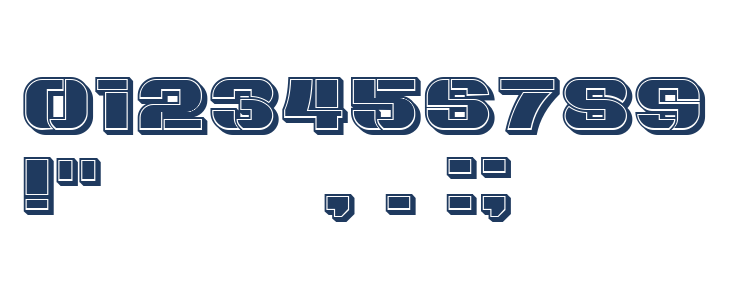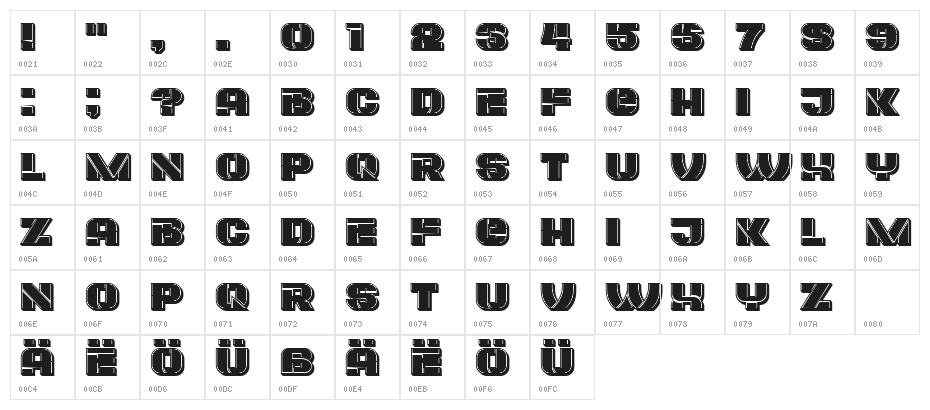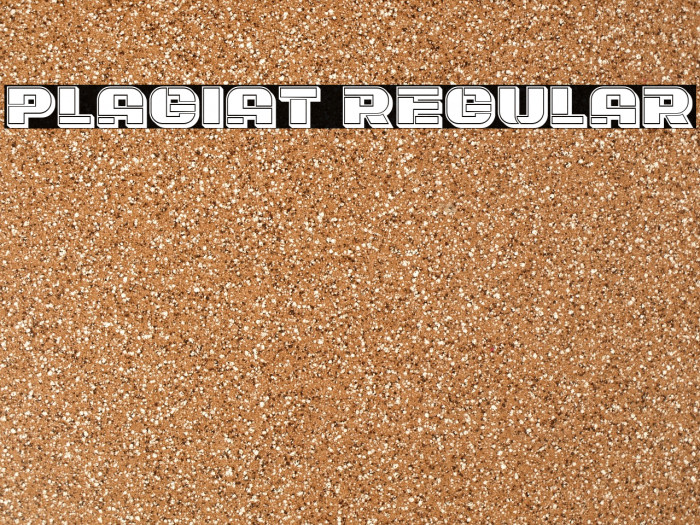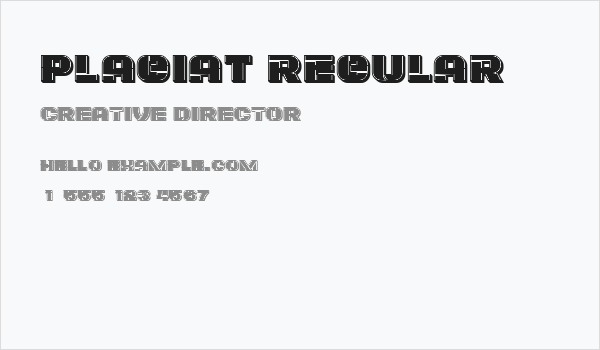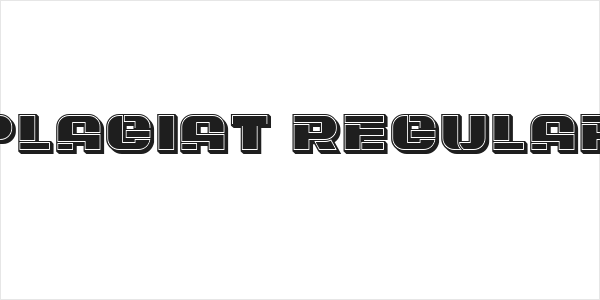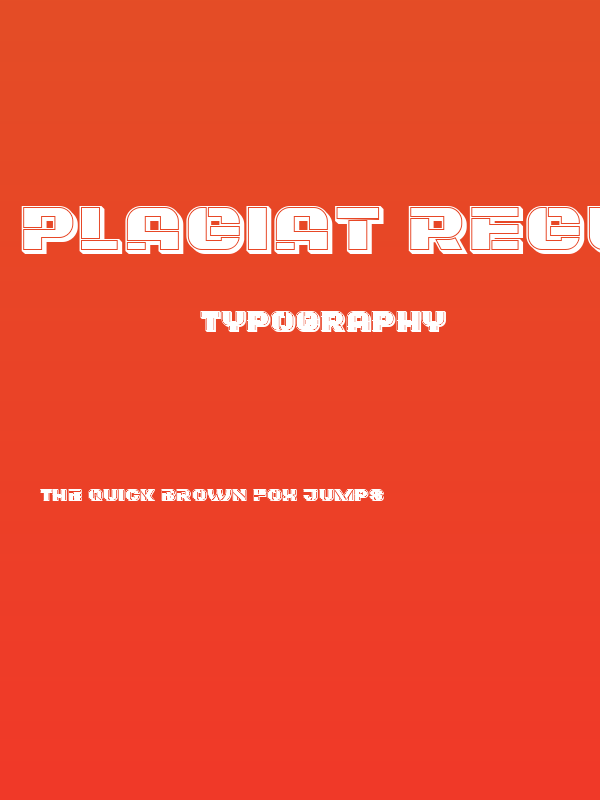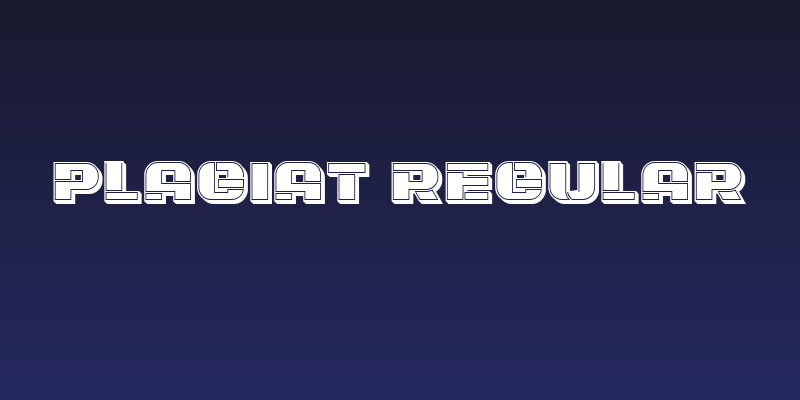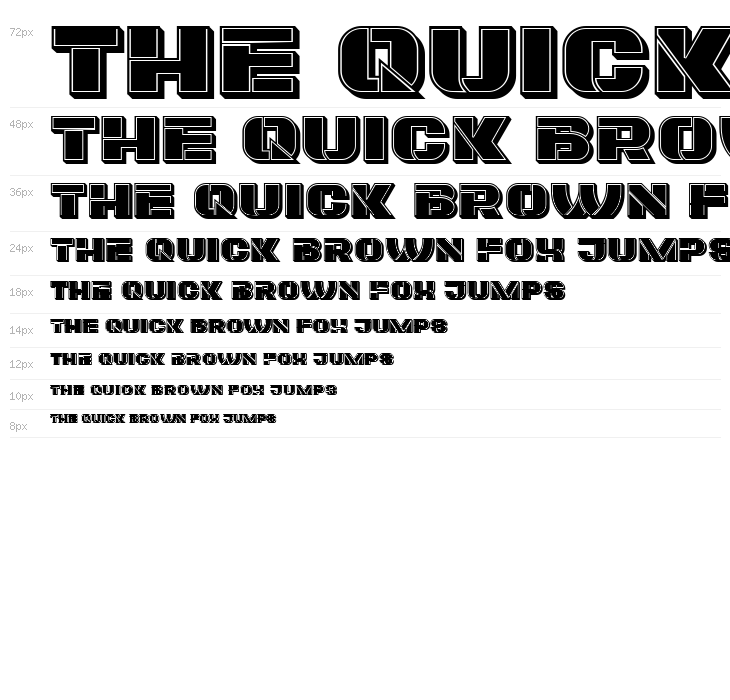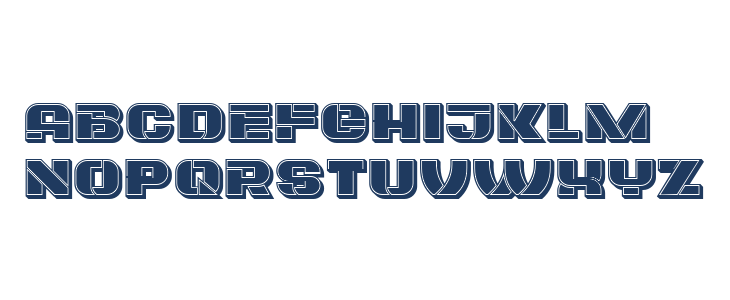
Plagiat Regular Font
Plagiat Regular Description
This font features a bold, geometric design with a three-dimensional effect created by its shadowed outline. The characters are uppercase and have a strong, impactful presence, making them ideal for attention-grabbing headlines or titles. The style is reminiscent of retro or vintage aesthetics, with a modern twist due to its clean lines and structured form. The numbers and special characters maintain the same bold and shadowed characteristics, ensuring consistency across all elements.
| Overall Style | Retro, Modern |
| Proposed Projects | Ideal for retro-themed posters, branding, logos, and any design requiring a strong, eye-catching headline. |